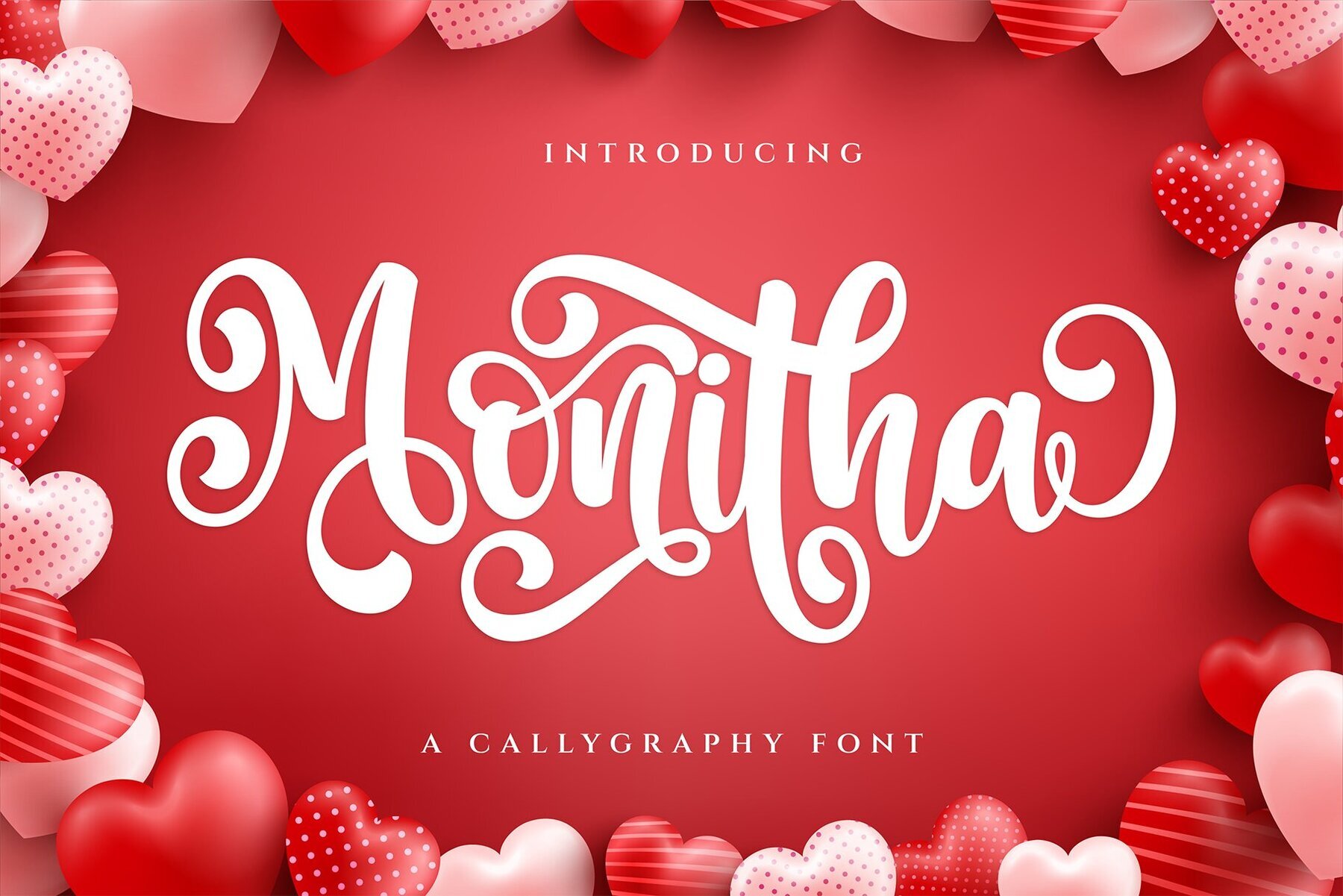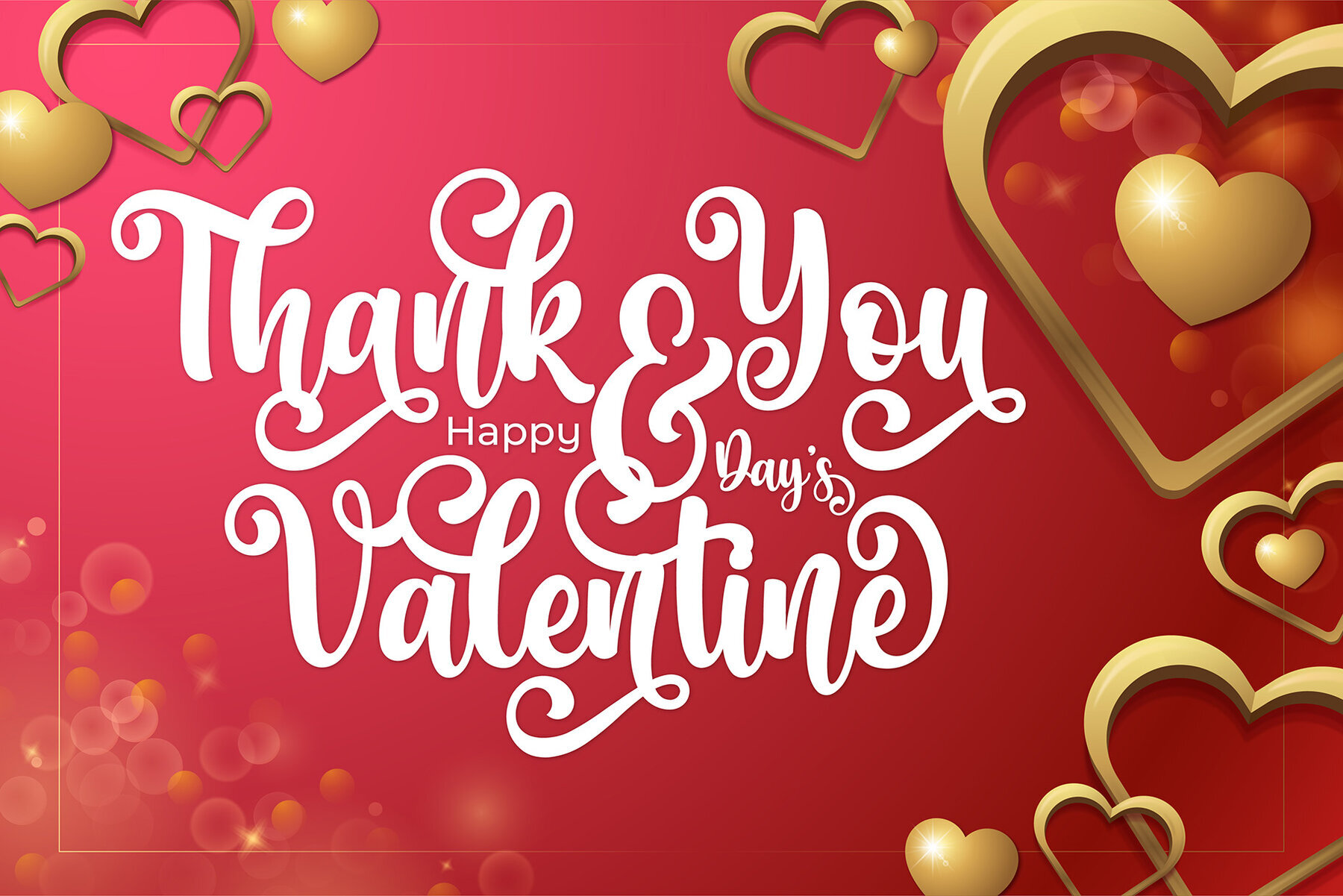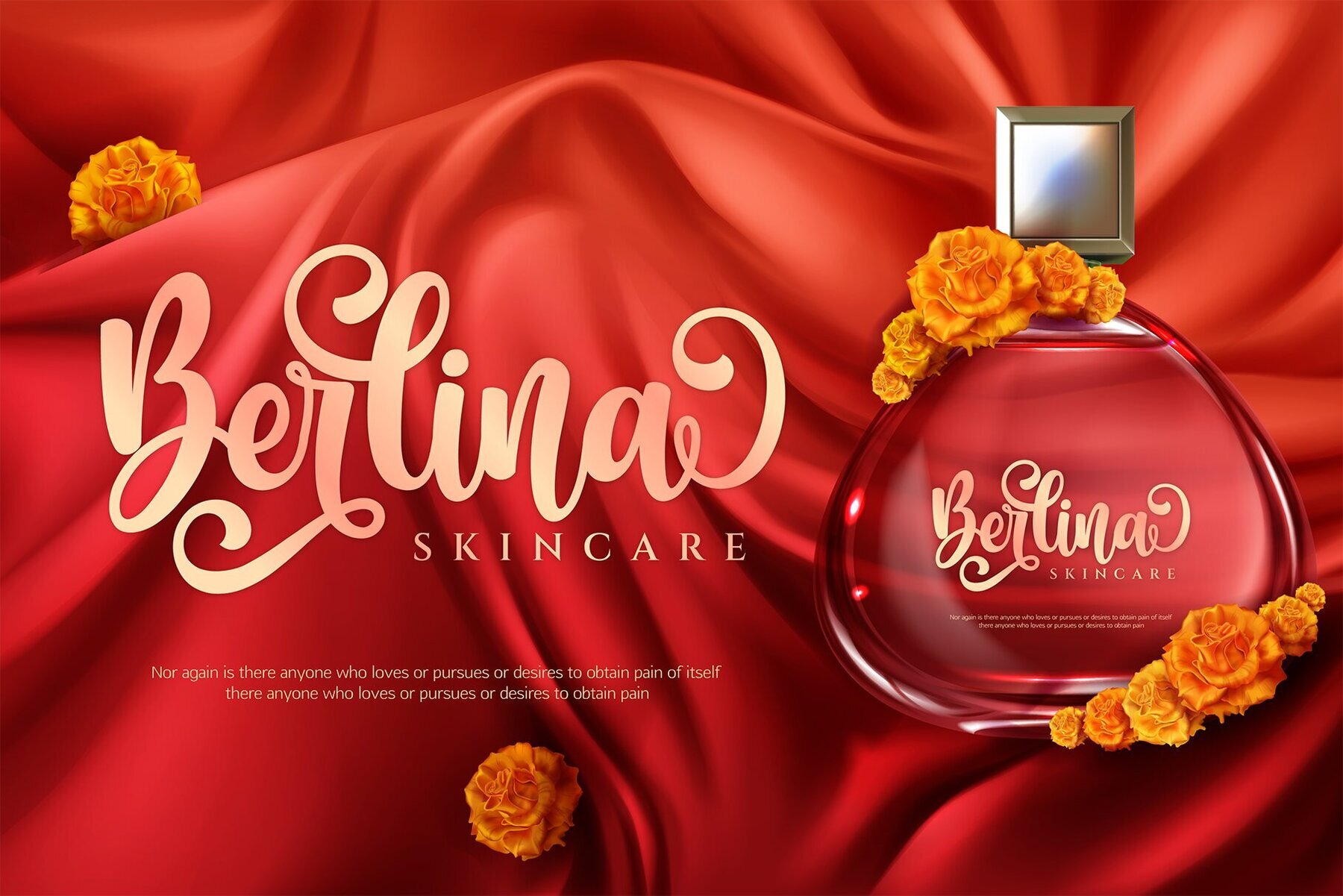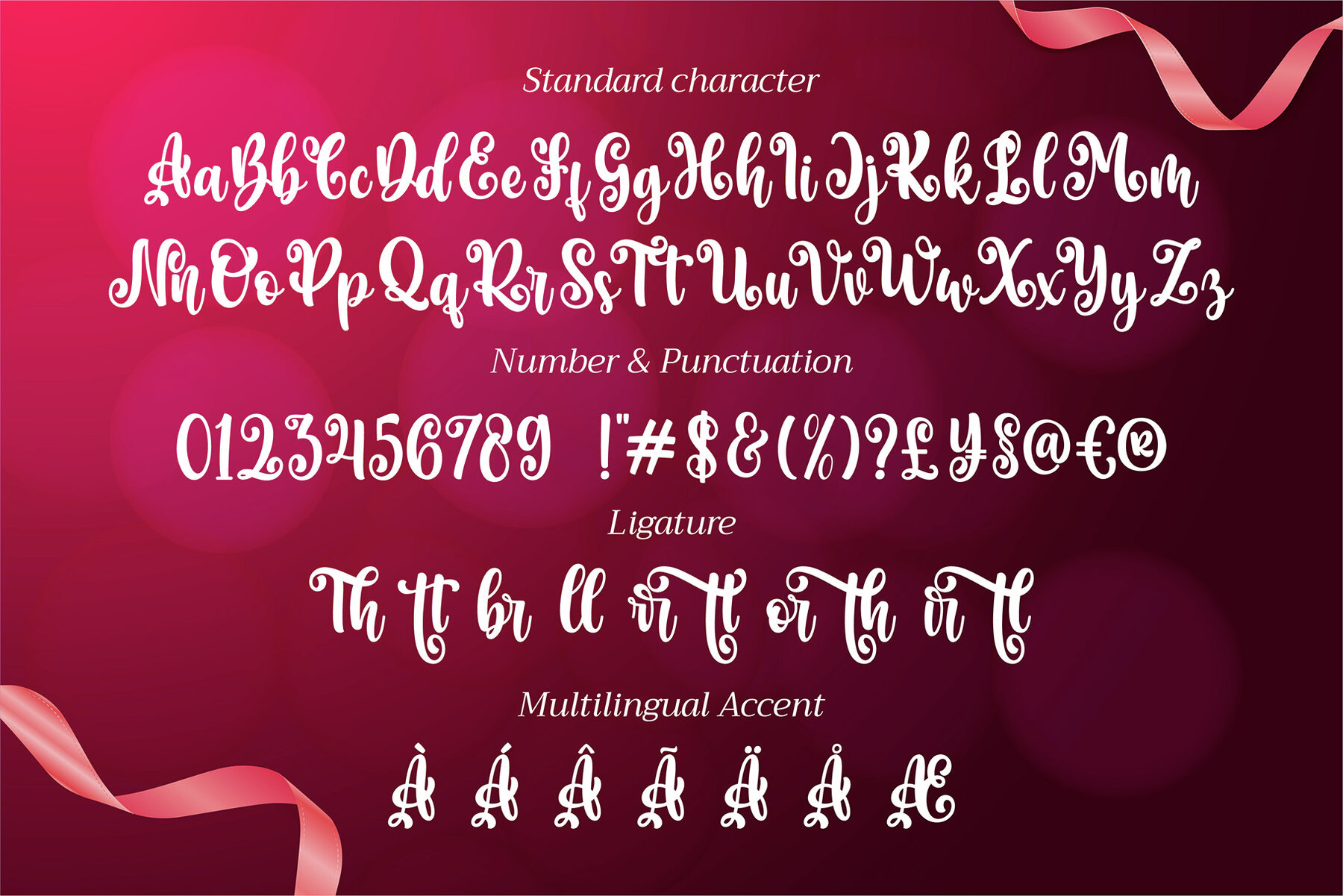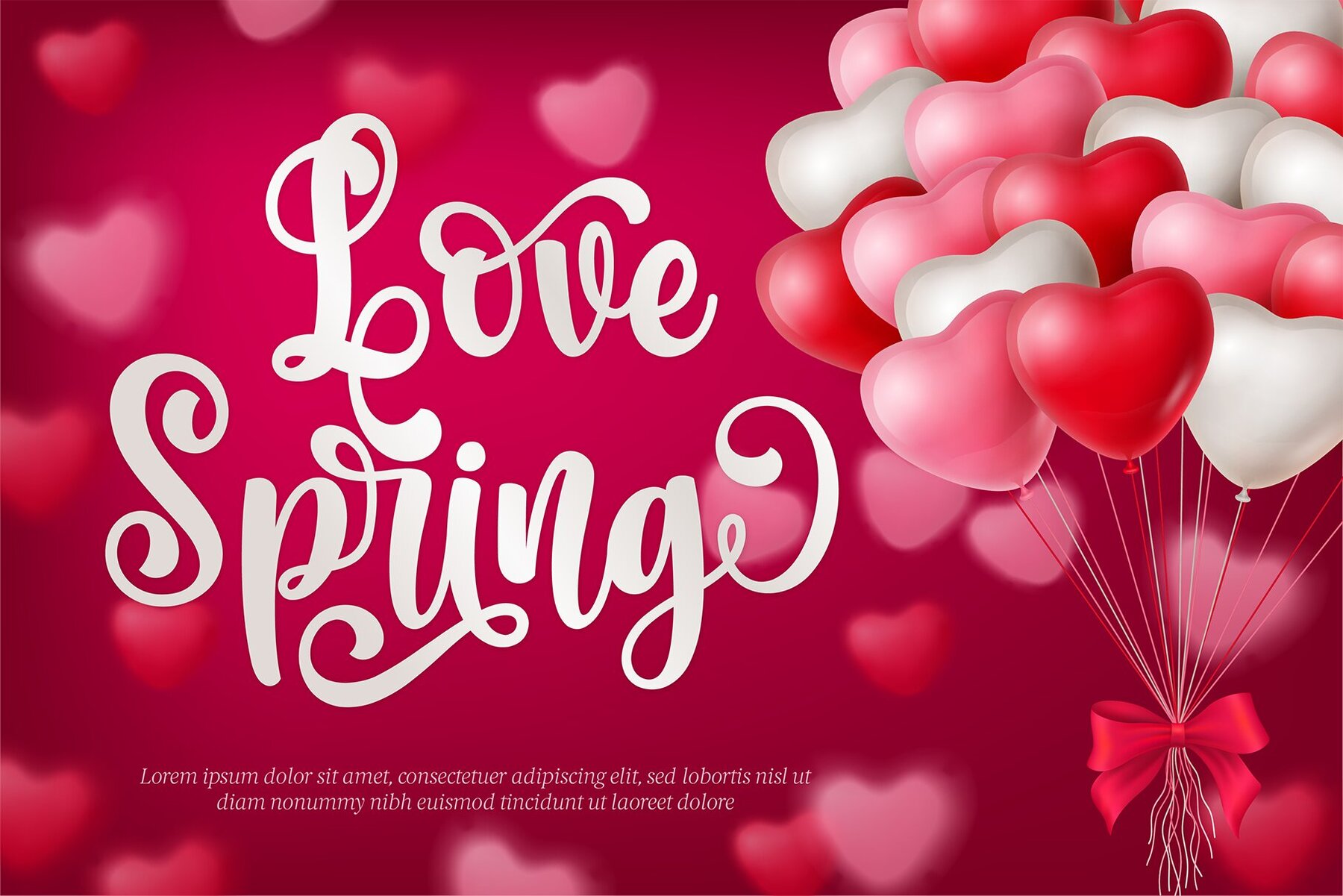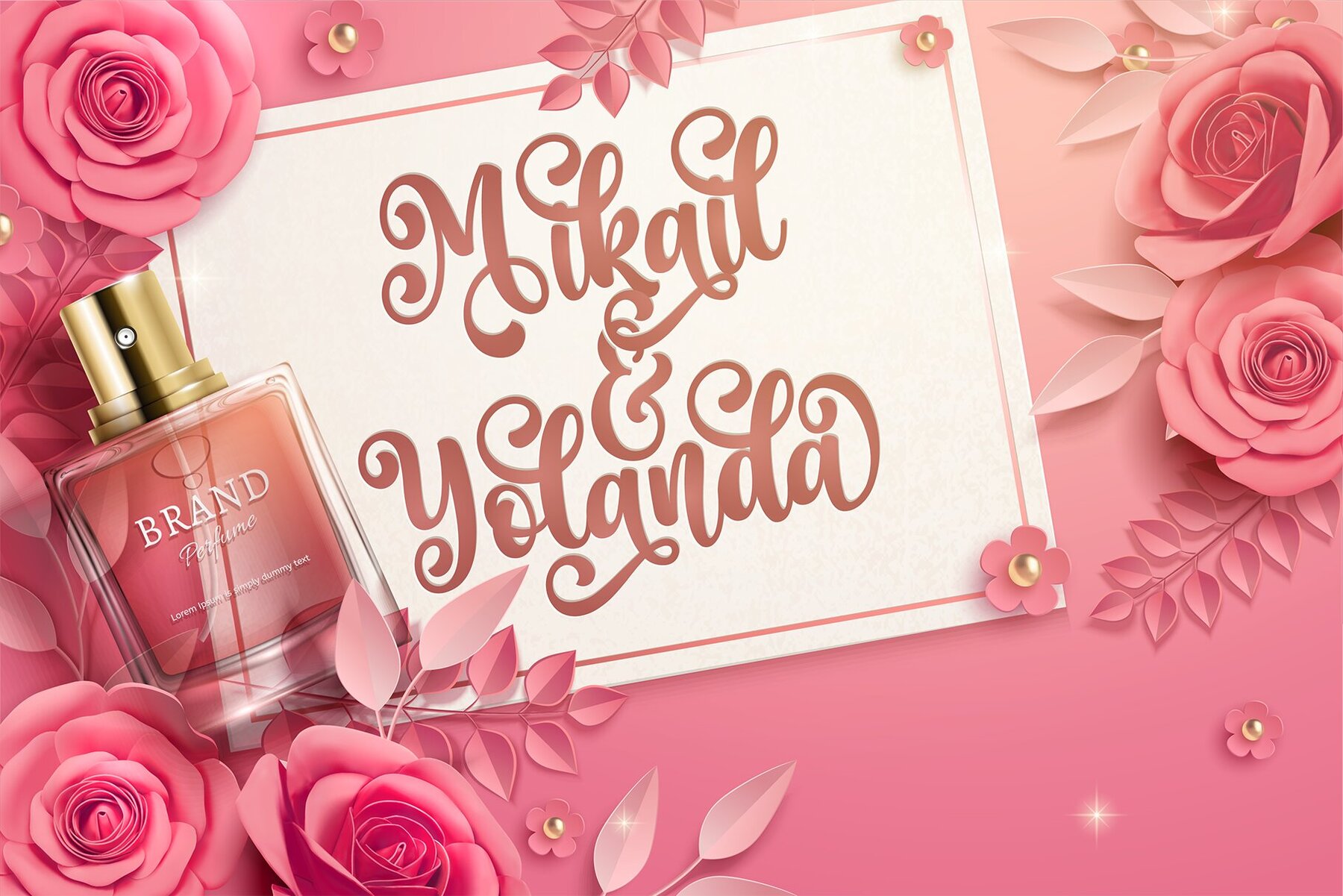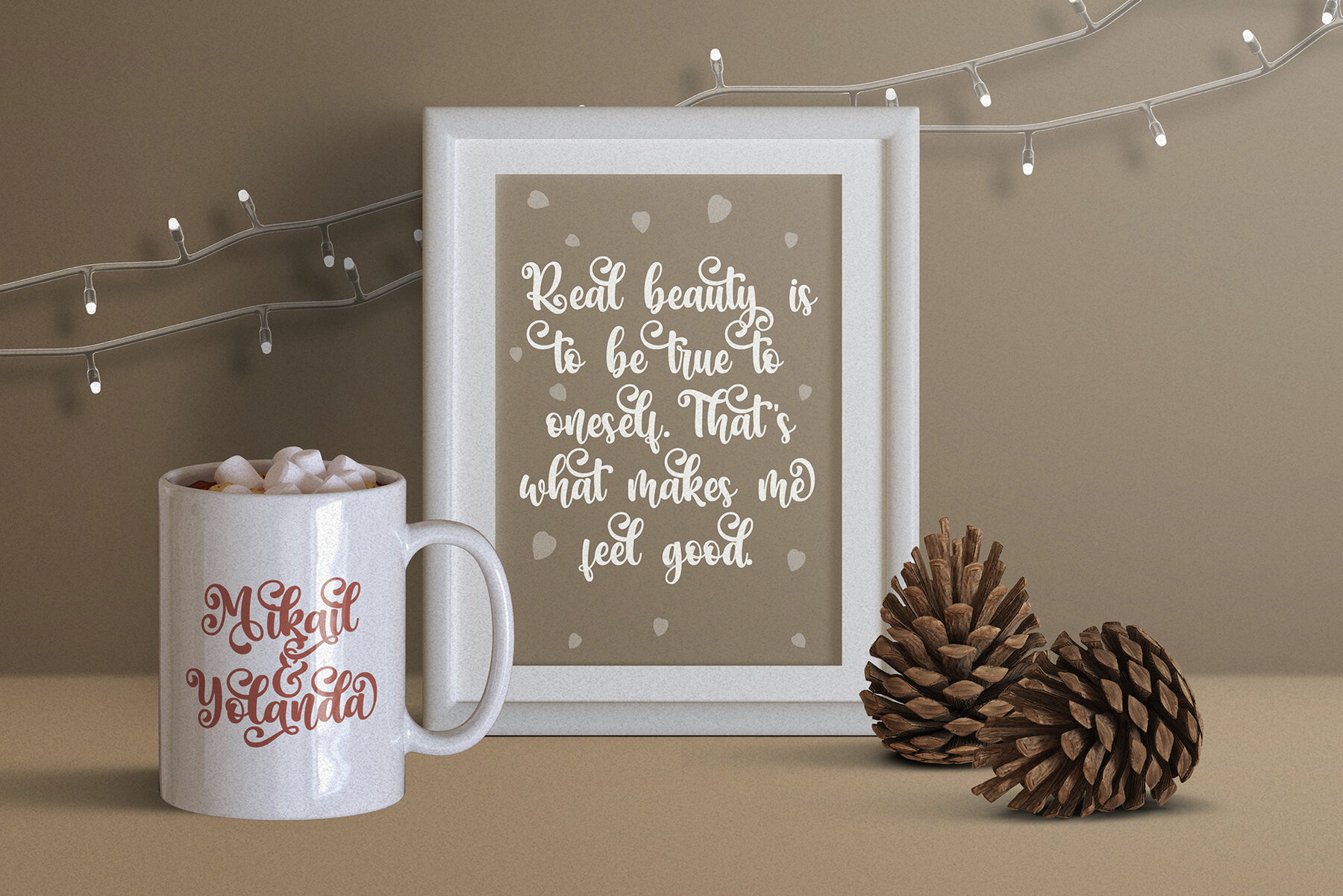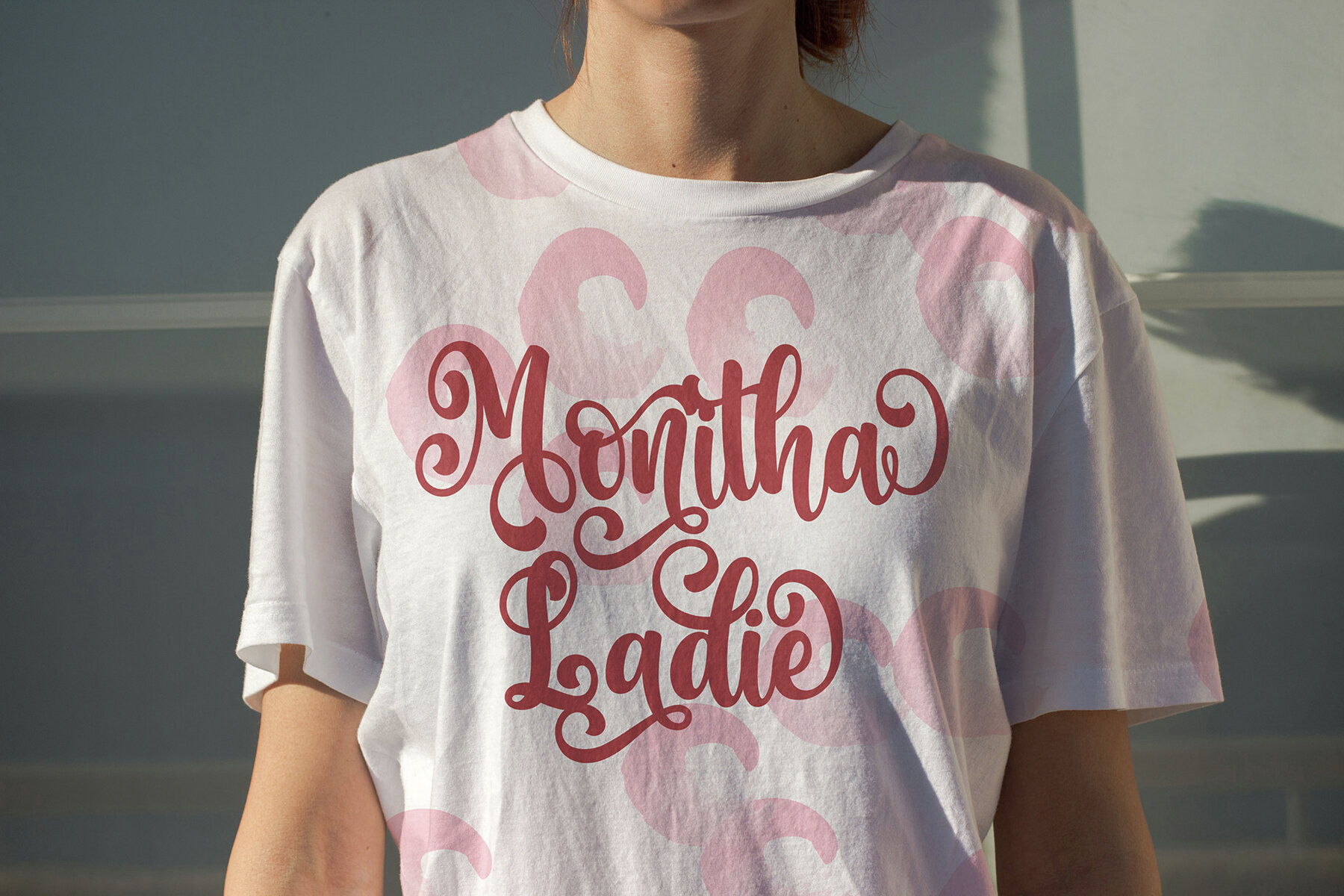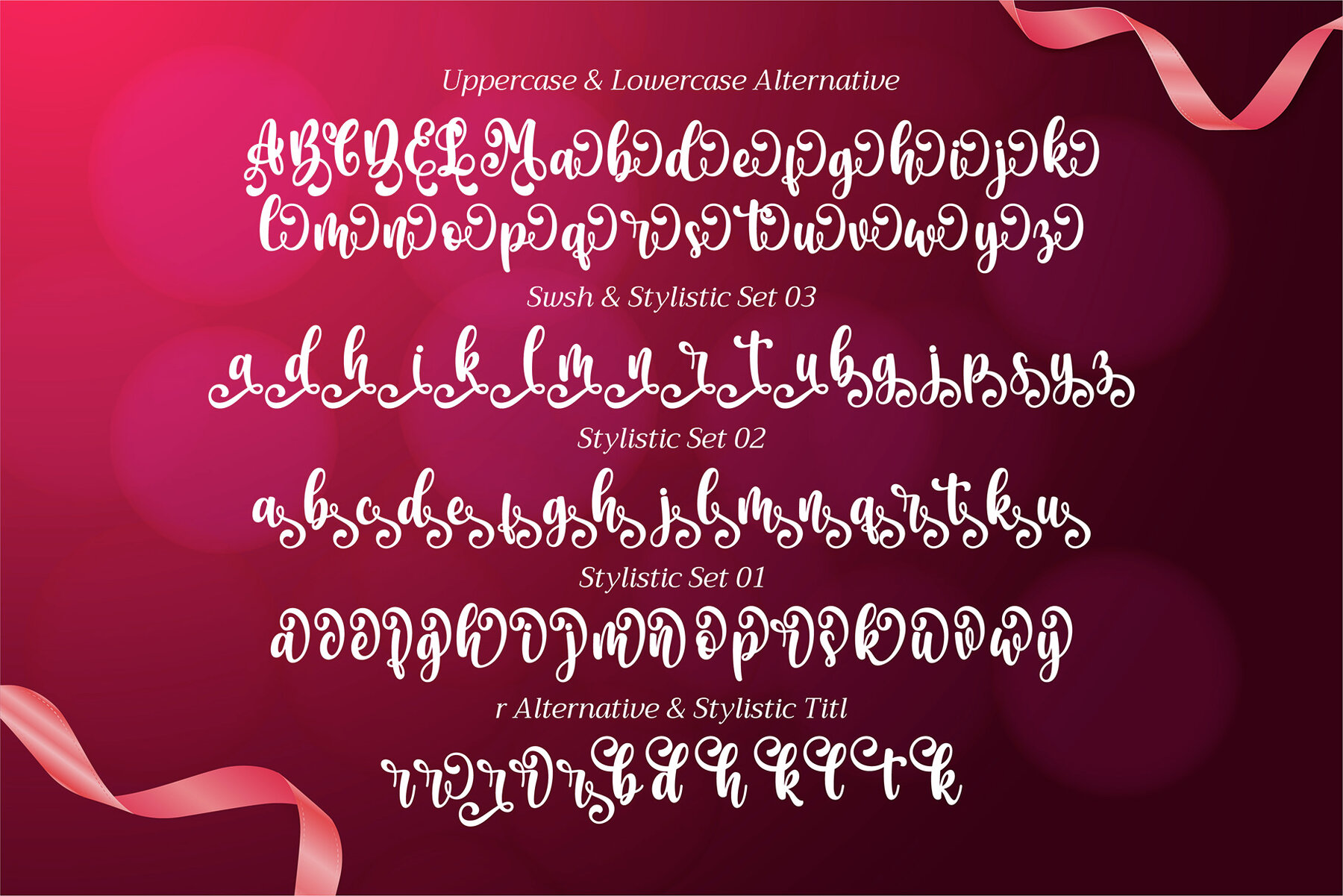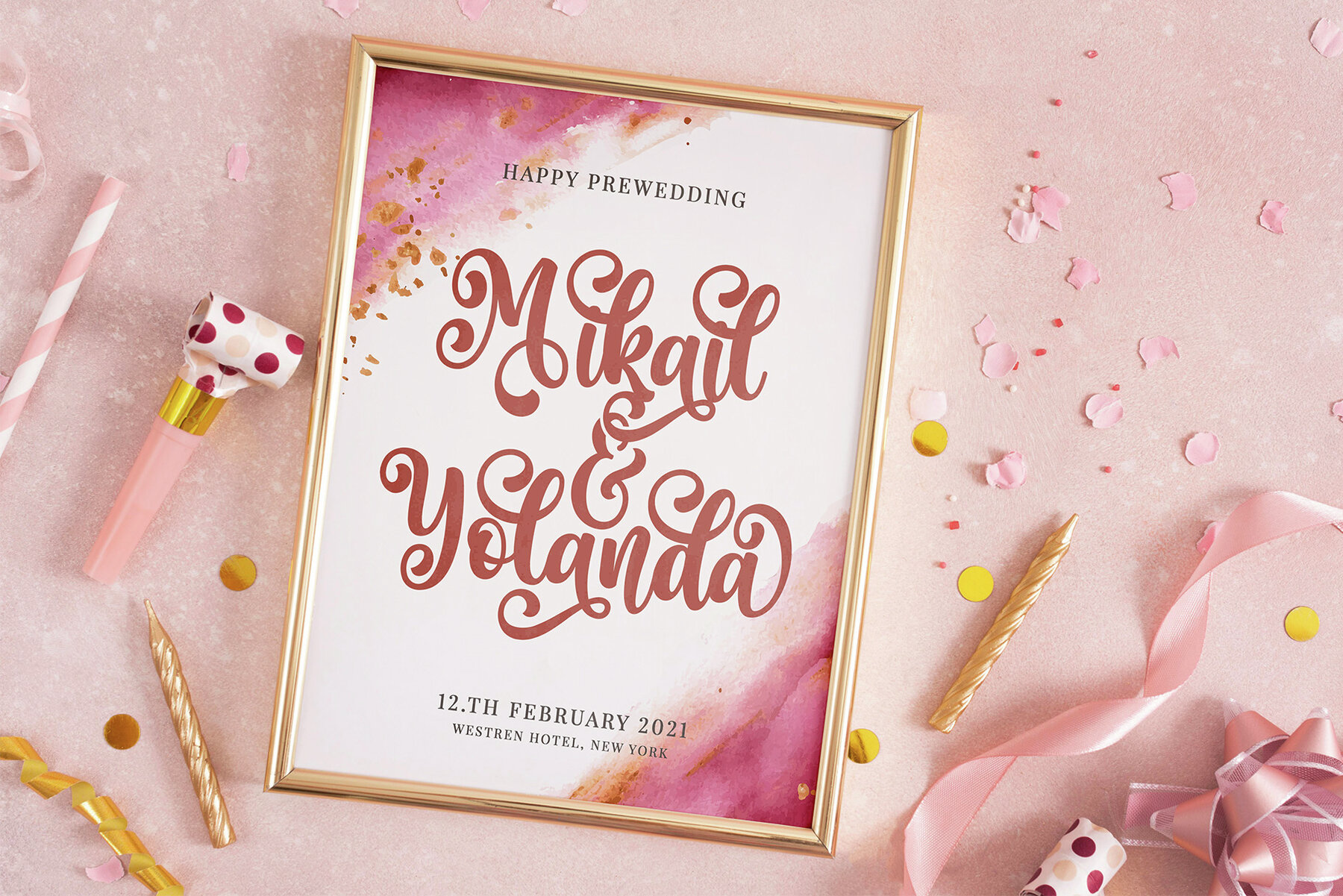
Monitha Font
Monitha
Monitha is a charming and adaptable script font perfect for bringing a touch of elegance to a variety of projects. Whether you're designing invitations or branding for weddings, birthdays, or fashion events, Monitha provides the sophistication you need.Monitha: A Versatile Script Font for Creative Projects